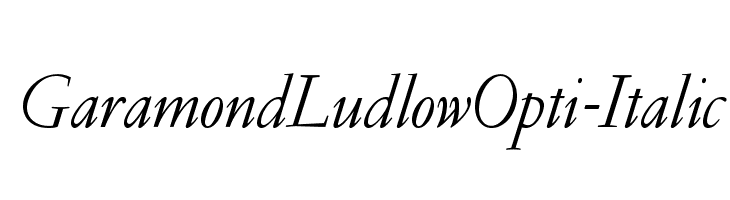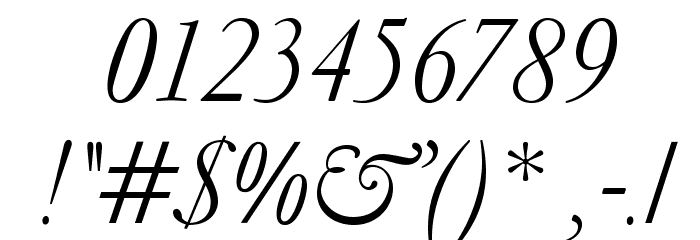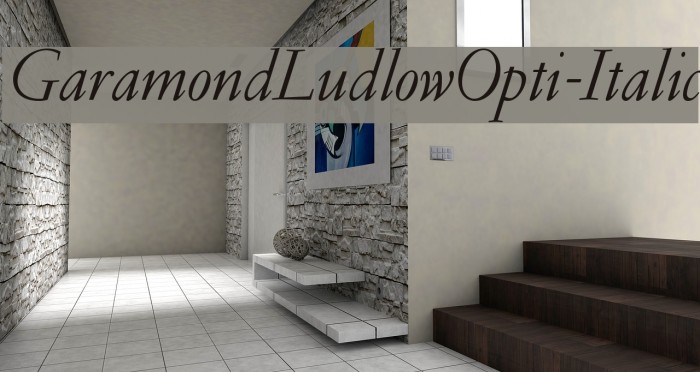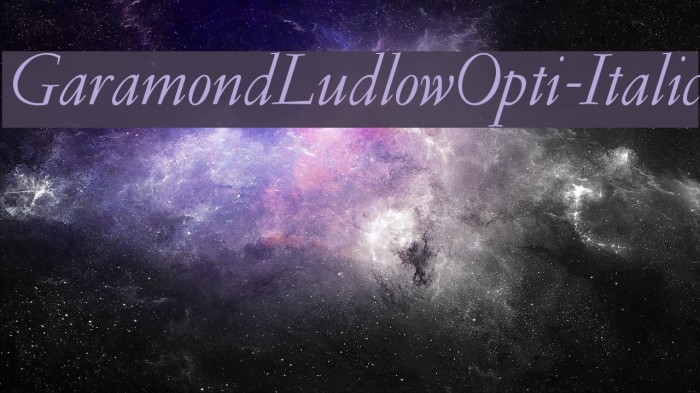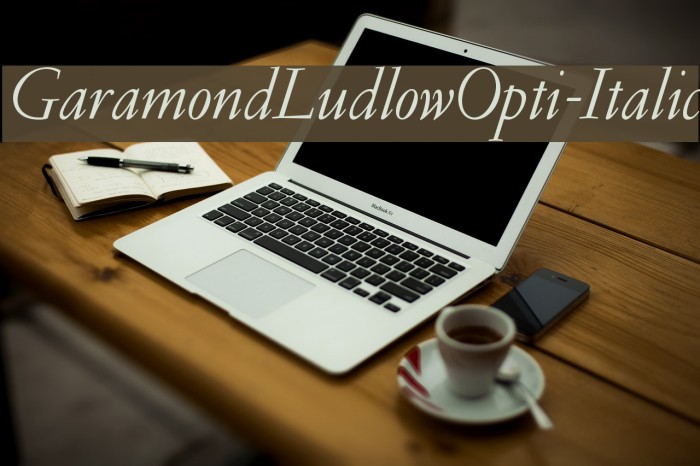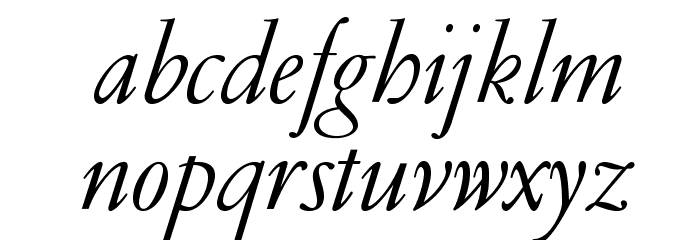
GaramondLudlowOpti-Italic Font
GaramondLudlowOpti-Italic Description
This elegant and classic typeface features a refined italic style with graceful curves and a sophisticated appearance. The letters are slightly slanted, giving a sense of motion and fluidity. The serifs are delicate and well-defined, contributing to a timeless aesthetic. The font maintains a balanced proportion between thick and thin strokes, enhancing readability while preserving its artistic flair. The numerals are consistent with the overall style, offering a harmonious look. Special characters are thoughtfully designed, adding to the font's versatility.
A refined and elegant italic serif font with graceful curves and balanced proportions from Uncategorized fonts.
- Proposed Projects: Ideal for projects requiring a touch of sophistication, such as wedding invitations, formal event programs, elegant branding, and editorial design.
- Overall Style: Classic